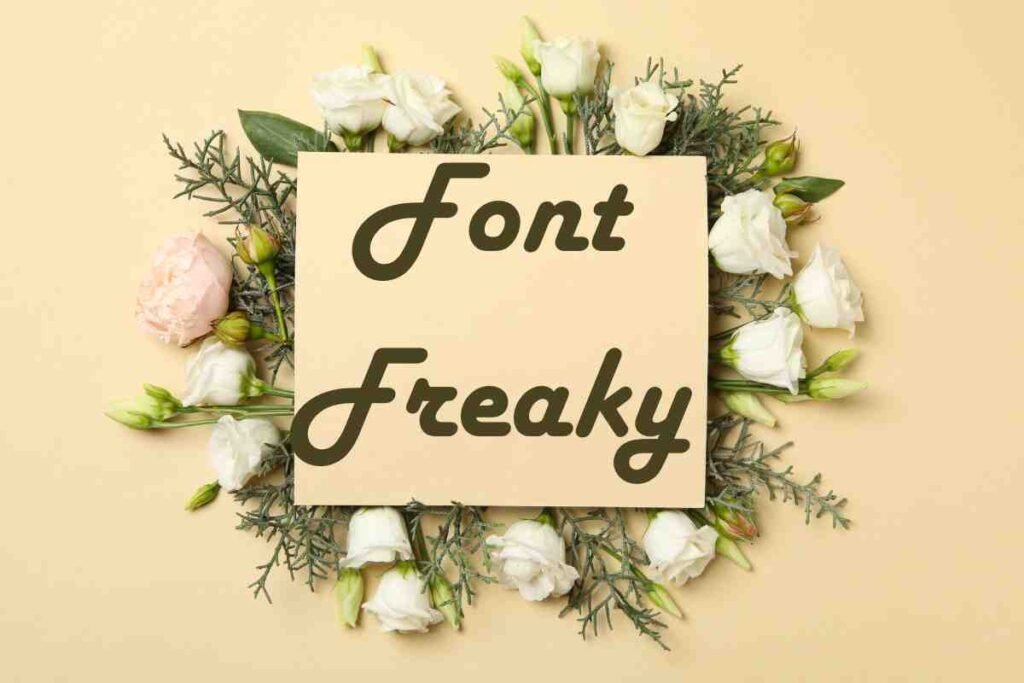
In a world where visual appeal is everything, the right font can make all the difference. Whether you’re designing a website, creating social media graphics, or crafting a personal project, typography plays a crucial role in setting the tone and capturing attention. Font Freaky is here to help you explore a world of unique, stylish, and eye-catching fonts that can elevate your text to the next level.
This ultimate guide will take you through everything you need to know about Font Freaky where to find the best fonts, how to use them effectively, and tips for making your designs stand out.
What is Font Freaky?
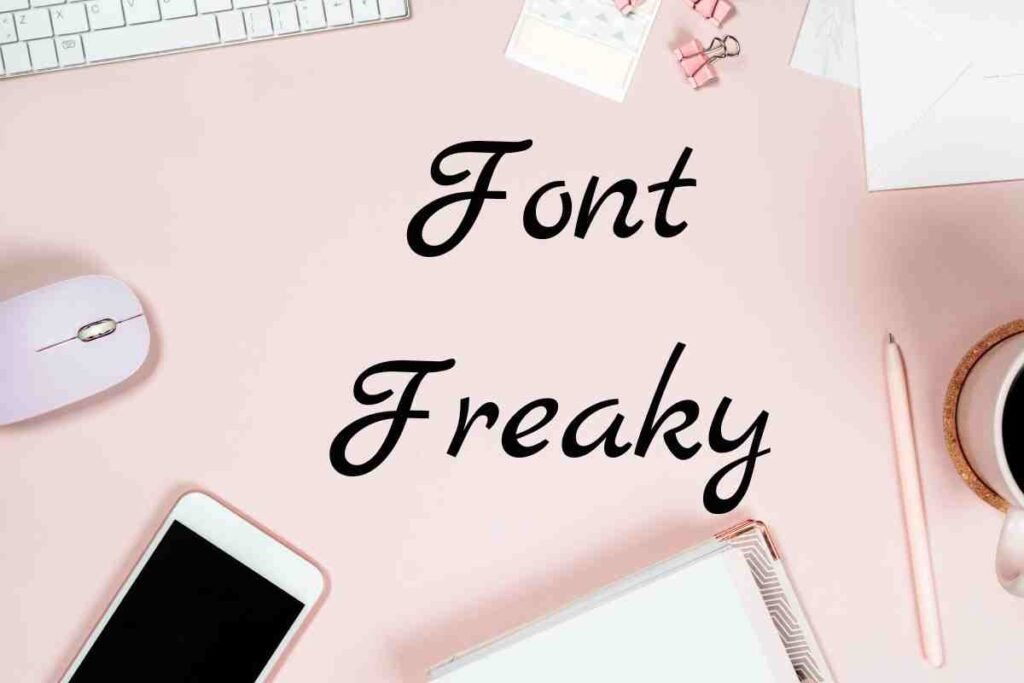
Typography plays a crucial role in visual communication. Whether for social media, gaming, graphic design, or digital art, having unique font styles makes your content stand out. Font Freaky is a web-based tool that allows users to generate, customize, and download various freaky text fonts. It provides an easy way to access gothic fonts, script fonts, and Unicode fonts for personalization.
Why Use Font Freaky?
Font Freaky is perfect for users who want to experiment with stylized fonts. Whether you’re looking for freaky fonts for Instagram, freaky fonts for gaming, or a freaky font generator, this tool offers countless possibilities. The tool supports Unicode encoding, ensuring compatibility across multiple platforms.
Top Features of Font Freaky
Font Freaky is your go-to platform for transforming plain text into eye-catching decorative fonts instantly. With the Freaky Font Generator, you can easily convert standard text into unique and stylish fonts, perfect for making a statement. Explore a variety of Freaky Font Styles, including distorted, glitch, and weird fonts, to add a creative twist to your designs. The platform also offers Copy and Paste Functionality, allowing you to seamlessly transfer your chosen fonts to social media, websites, or any digital platform.
How to Use Font Freaky?
Using Font Freaky is quick and effortless. Simply visit the website and open the Font Freaky tool in your web browser—no installations or downloads required. Once you’re on the platform, enter your text into the freaky font generator and watch it transform instantly. Next, choose a style from a wide range of unique font options, including gothic, zalgo, and other decorative fonts that add a creative touch to your text.
Once you’re satisfied with your selection, you can either copy and paste the text directly into your social media, website, or project, or download font files for offline use. Whether you need eye-catching typography for digital designs or stylish text for gaming usernames, Font Freaky makes it easy to elevate your text style effortlessly.
Popular Font Styles Available on Font Freaky
Explore a diverse range of unique fonts, including gothic, script, glitch, zalgo, and Unicode, to enhance your text with creative and eye-catching typography.
Gothic Fonts
Gothic fonts are known for their dark, dramatic strokes and intricate detailing, often associated with medieval aesthetics and eerie atmospheres. These fonts are widely used in horror-themed designs, gaming interfaces, heavy metal branding, and fantasy artworks, adding a bold and mysterious vibe to any project.
Script Fonts
Script fonts elegantly mimic cursive handwriting, offering a stylish and sophisticated touch to digital typography. Whether used for wedding invitations, branding, social media graphics, or digital signatures, these fonts create a smooth, flowing look that enhances readability while maintaining an artistic appeal.
Glitch Fonts
Glitch fonts introduce a distorted, fragmented, and futuristic effect to text, making it look like it’s flickering or malfunctioning. Perfect for cyberpunk designs, tech-related visuals, gaming aesthetics, and digital art, these fonts capture the essence of technological chaos and innovation.
Zalgo Text
Zalgo text is a popular distorted font style where letters appear as if they are glitching, often with excessive diacritical marks and chaotic overlays. Commonly used in creepy pastas, horror memes, digital pranks, and experimental typography, Zalgo fonts add a surreal, unsettling effect to any text.
Unicode Fonts
Unicode fonts ensure universal compatibility across various platforms, making them ideal for web-based typography. Unlike standard fonts, Unicode-based fonts work seamlessly across social media, mobile apps, websites, and different operating systems, ensuring your stylized text remains intact regardless of where it’s displayed. These fonts are widely used in branding, international communications, and decorative online text styles.
What are some popular freaky font styles?
Some popular styles include gothic fonts, glitch fonts, zalgo text, script fonts, and distorted fonts.
How do I use Freaky fonts for Instagram?
Simply enter your text in the Font Freaky generator, choose a style, and copy and paste it into your Instagram bio or captions.
Are Font Freaky fonts compatible with all platforms?
Yes, since it uses Unicode characters, the generated fonts work across most platforms, including social media and gaming apps.